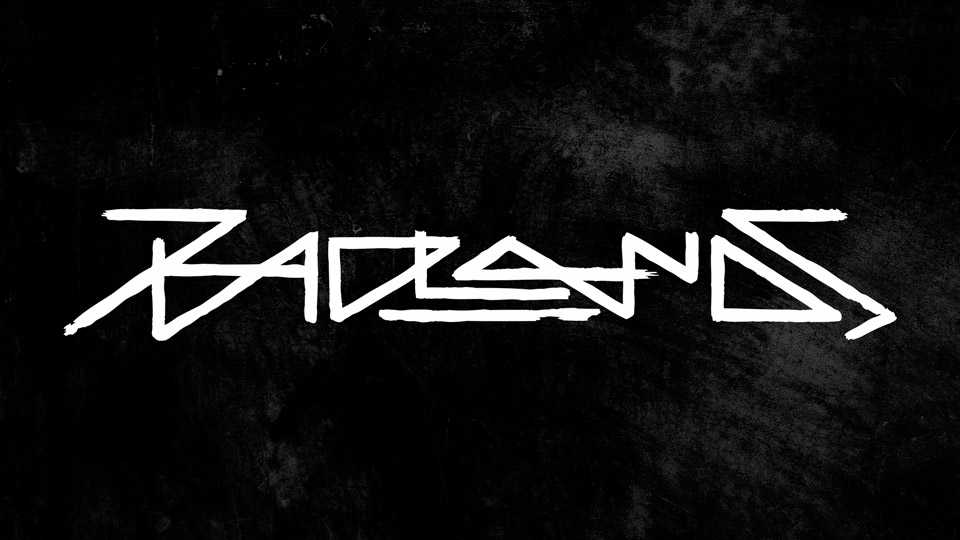
Download Badlands font, a bold hand painted brush typeface influenced by street art and calligraphy. With its strong and unique character Badlands is great for logos, posters, album artworks and apparel designs.
Designer: Jason Ferry